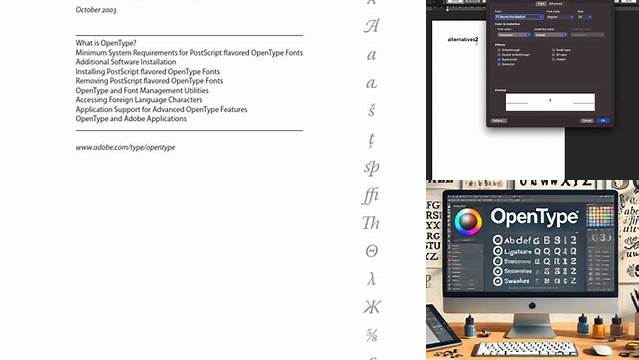
OpenType Fonts In Word: A Complete Guide
Introduction: Unveiling the Power of OpenType Fonts in Word
Hey guys, ever wondered about the magic behind those beautiful fonts you see in Microsoft Word? Well, a big part of that magic comes from OpenType fonts. These fonts are like the superheroes of the font world, offering a wide range of features and flexibility that can seriously level up your documents. In this comprehensive guide, we're going to dive deep into the world of OpenType fonts, specifically how they work within Microsoft Word. We will explore what OpenType fonts are, what makes them special, and how you can harness their power to create stunning, professional-looking documents. Whether you're a seasoned writer, a student working on a project, or just someone who likes to make their emails look fancy, understanding OpenType fonts is a game-changer.
OpenType fonts are a modern font format developed by Microsoft and Adobe, designed to overcome the limitations of older font formats like TrueType. Unlike their predecessors, OpenType fonts are cross-platform, meaning they work seamlessly on both Windows and macOS. This is a huge advantage, as it ensures that your document will look the same no matter where it's opened. But the real power of OpenType fonts lies in their advanced features. They support a vast number of characters, including thousands of glyphs, which enable the use of ligatures, stylistic sets, and other typographic features. This opens up a world of creative possibilities, allowing you to fine-tune the appearance of your text and create a unique visual style.
Word's support for OpenType fonts is robust, allowing you to access and utilize all their features. You can easily browse through the available fonts, preview them, and apply them to your text. Word also provides tools to access the advanced typographic features of OpenType fonts. This means you can enable ligatures, which are special characters that combine two or more letters for a more fluid look. You can also experiment with stylistic sets, which offer different variations of the same font, allowing you to create different moods and effects. By understanding how to use OpenType fonts in Word, you can transform your documents from basic text to works of art. So, buckle up, because we're about to embark on a font adventure!
What are OpenType Fonts and Why Should You Care?
Alright, let's get down to the nitty-gritty: What exactly are OpenType fonts, and why should you, as a Word user, care? In simple terms, OpenType fonts are a type of digital font that contains a wide range of characters, glyphs, and advanced typographic features. They're like the premium version of fonts, offering way more than just the basic alphabet and numbers. Created by Microsoft and Adobe, OpenType fonts are designed to work flawlessly across different operating systems, like Windows and macOS. This means you can create a document on your Mac, and it'll look exactly the same when opened on a Windows PC. No more font substitution nightmares!
So, why are OpenType fonts so cool? Well, the main reason is their flexibility. They can include thousands of glyphs, which are individual characters or variations of characters. This means that an OpenType font can support multiple languages, special characters, and even different styles of the same letter. For example, an OpenType font might include ligatures (special characters that combine two or more letters, like "fi" or "fl" for a smoother look), stylistic sets (different variations of the same font), and old-style figures (numbers that look more like handwritten digits). These features give you much more control over the look of your text, allowing you to create a more polished and professional appearance.
Another big advantage of OpenType fonts is their ability to handle complex scripts. Many OpenType fonts support languages like Arabic, Hebrew, and Cyrillic, which require special character shapes and arrangements. This makes OpenType fonts essential if you're working with multilingual documents. Plus, OpenType fonts often come with improved hinting, which means the font looks sharper and clearer at different sizes and resolutions. This is particularly important if you're creating documents that will be viewed on different devices.
In summary, using OpenType fonts in Word is a no-brainer if you want more control over your typography, better cross-platform compatibility, and support for a wider range of characters and languages. It's like upgrading from a basic car to a luxury vehicle – you get a smoother ride, more features, and a better overall experience. Now, who doesn't want that?
How to Find and Install OpenType Fonts in Microsoft Word
Alright, now that you're jazzed about the power of OpenType fonts, let's talk about how to actually find and install them in Microsoft Word. The good news is, there's a whole world of fonts out there, and Word makes it pretty easy to get them up and running. Let's break it down step by step, guys.
Finding OpenType Fonts: The first step is finding the fonts themselves. There are tons of places to discover OpenType fonts, both free and paid. Here are a few of my favorites:
- Google Fonts: A fantastic resource with a huge library of free, open-source fonts. All of them are OpenType. It's super easy to browse and download them.
- Adobe Fonts: If you have an Adobe Creative Cloud subscription, you get access to a massive library of premium fonts. They're all OpenType and offer a huge range of styles.
- Font Websites: There are tons of websites dedicated to fonts, like DaFont, Font Squirrel, and MyFonts. These sites offer a mix of free and premium fonts, so browse and see what tickles your fancy. Just make sure the fonts you download are OpenType (look for the .otf or .ttf file extensions).
Installing OpenType Fonts: Once you've downloaded your fonts, the installation process is pretty straightforward:
- Locate the Font Files: Find the font files you downloaded. They'll usually be in a zipped folder. Extract the contents of the folder to get the .otf or .ttf font files.
- Install the Fonts: There are a couple of ways to install the fonts:
- Double-Click Installation (Windows): Right-click on the font file (.otf or .ttf) and select "Install". The font will be installed for all users on your computer.
- Double-Click Installation (macOS): Double-click the font file (.otf or .ttf). This will open the Font Book app. Click "Install Font" at the bottom of the window.
- Check in Word: Open Microsoft Word. The new font should now be available in your font dropdown menu. If you don't see it immediately, try restarting Word.
Tips for Installation:
- Organize Your Fonts: Keep your downloaded fonts organized in a separate folder. This will make it easier to find and manage them.
- Font Conflicts: Sometimes, installing a new font can cause conflicts with existing fonts. If you encounter any issues, try uninstalling the conflicting font or restarting your computer.
- Administrator Privileges: If you're having trouble installing fonts, make sure you have administrator privileges on your computer.
That's it! Now you know how to find and install OpenType fonts in Word. The world of typography is at your fingertips. Have fun experimenting and creating beautiful documents!
Using OpenType Features in Word: Ligatures, Swashes, and More
Okay, you've got your awesome OpenType fonts installed in Word. Now, let's unlock their full potential and explore those fancy features that make them so special. We're talking about ligatures, stylistic sets, swashes, and more. Get ready to take your typography game to the next level, people!
Ligatures: One of the most common and useful OpenType features is ligatures. These are special characters that combine two or more letters into a single, more visually appealing glyph. For example, the letters "f" and "i" often have a ligature (fi) where the dot of the "i" is connected to the top of the "f." This creates a smoother and more elegant look, especially in body text. Many OpenType fonts include ligatures as a standard feature.
Stylistic Sets: These sets offer different variations of the same font. They can change the shape of individual letters, alter the weight or style, or add unique embellishments. Stylistic sets give you a ton of creative control, allowing you to create different moods and effects. For example, a font might have a stylistic set that makes the letters look more playful, or another that gives them a more formal appearance. Word makes it easy to switch between these sets.
Swashes: Some OpenType fonts include swashes, which are decorative flourishes added to certain letters. Swashes can make your text look more elegant and stylish, perfect for headlines, invitations, or any document where you want to add a touch of flair.
Contextual Alternatives: This feature changes the appearance of a character depending on the letters around it. This is useful for creating a more natural-looking flow in your text. For example, the letter "a" might have different shapes depending on whether it's followed by "b" or "c."
Accessing OpenType Features in Word: Word provides a user-friendly interface for accessing these features:
- Select the Text: Select the text you want to apply the OpenType features to.
- Font Dialog Box: Open the Font dialog box. You can do this by clicking the small arrow in the bottom-right corner of the Font group on the Home tab or by pressing Ctrl+D (Windows) or Cmd+D (macOS).
- Advanced Tab: Go to the "Advanced" tab of the Font dialog box.
- OpenType Features: You'll see a section labeled "OpenType Features." Here, you can enable or disable ligatures, stylistic sets, swashes, and other features. The options available will depend on the specific OpenType font you're using. Experiment and see what looks best!
Important Considerations:
- Font Compatibility: Not all OpenType fonts have all these features. The availability of ligatures, stylistic sets, etc. will depend on the font's design.
- Experimentation: Don't be afraid to experiment with different features. Play around with the settings and see what looks good. There's no right or wrong answer.
- Readability: While OpenType features can add visual interest, make sure they don't compromise readability. Use them thoughtfully and sparingly, especially in body text.
By mastering these OpenType features, you can create documents that are not only informative but also visually stunning. Go forth and create some typographic magic, guys!
Troubleshooting Common OpenType Font Issues in Microsoft Word
Alright, so you're diving into the world of OpenType fonts in Word, which is awesome! But sometimes, things don't go quite as planned. Don't worry, it's all part of the process. Let's troubleshoot some common OpenType font issues you might encounter, and get you back on track, fast.
Font Not Showing Up: This is probably the most frustrating issue. Here's how to fix it:
- Restart Word: This is the first and easiest step. Sometimes, Word just needs a restart to recognize the newly installed font.
- Restart Your Computer: If restarting Word doesn't work, try restarting your entire computer. This will ensure that the font is loaded correctly by the operating system.
- Check Font Installation: Double-check that the font is actually installed. Go to your system's font management tool (in Windows, search for "Fonts" in the Start menu; in macOS, use Font Book) and make sure the font is listed. If it's not, reinstall it.
- Font Cache: Sometimes, the font cache can cause problems. Try clearing the font cache. In Windows, you can do this by running the command "services.msc" in the Run dialog, stopping the "Windows Font Cache Service," deleting the font cache files in the C:\Windows\ServiceProfiles\LocalService\AppData\Local\FontCache\ folder, and then restarting the service. In macOS, you can use a utility like Font Nuke to clear the font cache.
OpenType Features Not Working: You've enabled ligatures, but they're not showing up? Here's what to check:
- Font Support: Not all OpenType fonts support all OpenType features. Make sure the font you're using actually includes the features you're trying to use. Check the font's documentation or website to see what features it supports.
- Word Version: Ensure you're using a recent version of Word. Older versions may not fully support all OpenType features.
- Feature Activation: Double-check that the OpenType features are actually enabled in the Font dialog box (as described in the previous section). Make sure the "Ligatures," "Stylistic Sets," etc., options are checked.
- Font Conflicts: Sometimes, other installed fonts can interfere with OpenType features. Try disabling other fonts or restarting Word in safe mode to see if the problem persists.
Font Looks Different on Another Computer: Your document looks perfect on your computer, but when you open it on another machine, the font looks wrong. What gives?
- Font Not Installed: The most common reason is that the font isn't installed on the other computer. Make sure the font is installed on any computer where you want the document to look the same.
- Font Substitution: If the font isn't installed, Word will substitute it with a similar font. This can change the appearance of your document. To avoid this, embed the font in the document (File > Options > Save > Embed fonts in this file). However, be aware that embedding fonts can increase the file size.
- Platform Differences: While OpenType fonts are designed to be cross-platform, subtle differences can sometimes occur between Windows and macOS. Make sure you're using the same version of Word on both computers and that your operating systems are up to date.
Other Troubleshooting Tips:
- Update Word: Make sure you're using the latest version of Microsoft Word. Updates often include bug fixes and improvements to font support.
- Check Font Files: If you're still having problems, the font files themselves might be corrupted. Try downloading the font again from a reliable source.
- Seek Help: If you've tried everything and you're still stuck, don't hesitate to seek help online. Search for your specific issue on the Microsoft support forums or other typography communities.
Troubleshooting can be a pain, but don't let these issues discourage you. With a little patience and these tips, you'll be able to conquer any OpenType font problem that comes your way.
Conclusion: Unleashing Your Creativity with OpenType Fonts in Word
Alright, guys, we've covered a lot of ground in our journey through the world of OpenType fonts in Microsoft Word. From understanding what OpenType fonts are and why they matter, to finding, installing, and using their amazing features, you now have the knowledge to create truly stunning documents.
Key Takeaways:
- OpenType fonts offer a wide range of features, including ligatures, stylistic sets, and support for a vast number of characters, that older font formats can't match.
- Word provides excellent support for OpenType fonts, allowing you to access and utilize all their features with ease.
- You can find OpenType fonts on Google Fonts, Adobe Fonts, and various font websites.
- Installing fonts is straightforward: download, extract, and install the font files, and then they should be available in Word.
- The Advanced tab in the Font dialog box is your gateway to enabling ligatures, stylistic sets, and other OpenType features.
- Troubleshooting common font issues is manageable, and with a little persistence, you can overcome any challenges.
Now, it's time to put what you've learned into practice. Experiment with different fonts, explore their features, and unleash your creativity. Whether you're writing a report, designing a flyer, or crafting an email, OpenType fonts can help you elevate your work and make it stand out.
Don't be afraid to try new things, play around with the settings, and find what works best for you. The world of typography is vast and exciting, and with OpenType fonts and Microsoft Word as your tools, the possibilities are endless. So go forth and create some amazing documents! Happy fonting!